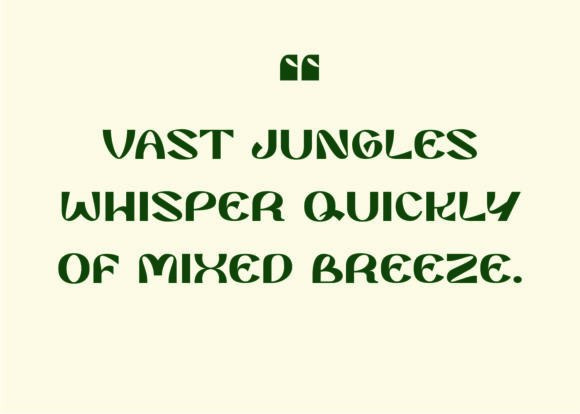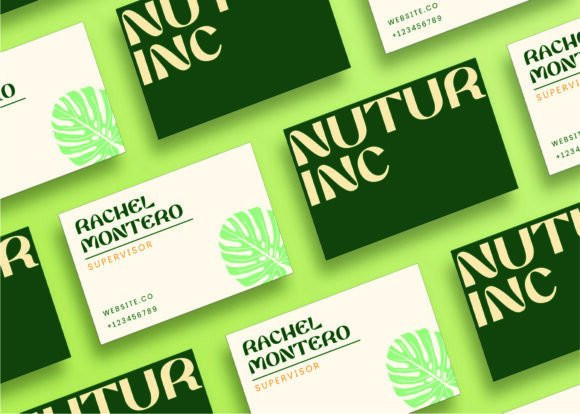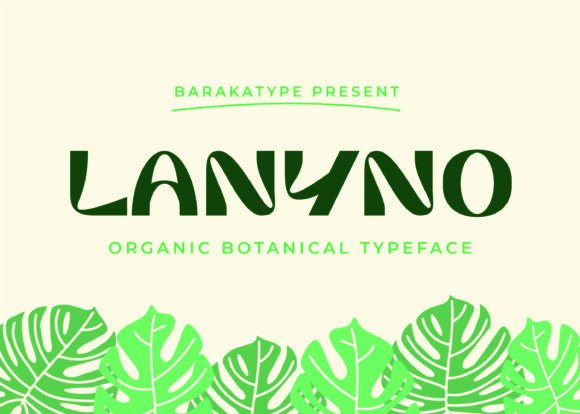
Lanyno Font
Lanyno Font a wholesome, eco-conscious vibe. Created to bring a sense of natural warmth and fluid movement to your work. With its soft, leaf-like curves and gentle structure, it is an ideal choice for wellness branding, sustainable packaging, or lifestyle layouts that demand an earthy, authentic look.